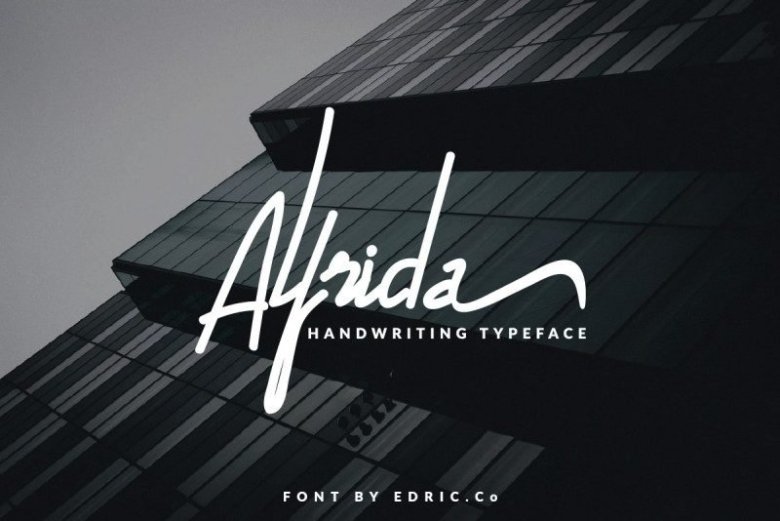
Alfrida Handwritten Font
Alfrida Signature Script Font. It will be great for photography, wedding, invitation, watermark, signature online, logo, promo, boutique, fashion, designer, photographer, beauty skin car, hair salon, architect, hand written, hand made, handrawn.